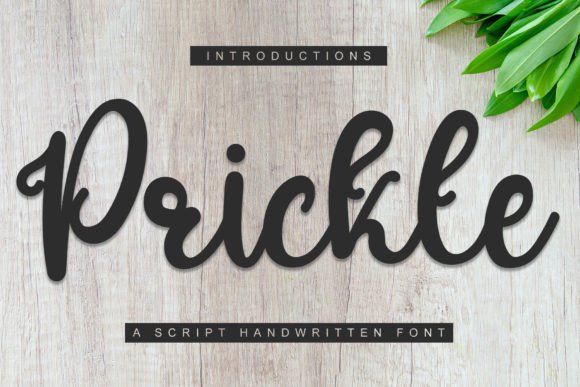
Presenting Prickle Font, a captivating handwritten typeface, exclusively crafted by the renowned YanStudio. This stunning script font boasts an enticing blend of boldness and finesse, making it the ideal choice for businesses seeking to elevate their communication. Each letter, meticulously shaped, exudes a touch of elegance and sophistication.
Prickle's graceful strokes and flowing form create a natural and ethereal look that seamlessly complements any design. Its unique character adds a touch of warmth and individuality to your creations, ensuring they stand out from the crowd. Whether you're crafting captivating emails, designing alluring marketing materials, or creating breathtaking social media posts, Prickle Font is the secret to captivating your audience and leaving an unforgettable impression.
With its versatility and charm, Prickle Font is the perfect ally for any business looking to forge strong connections with its customers. It's a font that speaks volumes, conveying professionalism, creativity, and a genuine desire to connect. Imagine your emails, the lifeblood of your business, adorned with this captivating font. Prickle transforms your messages into compelling narratives that resonate with your audience, inviting them to engage and discover your offerings. Every email becomes an opportunity to make a lasting connection, building a loyal customer base that fuels your business' growth.
Beyond emails, Prickle Font empowers you to craft marketing materials that truly shine. Brochures, flyers, and posters infused with Prickle's elegance will captivate your audience, drawing their attention to your message. Its ability to effortlessly blend with images and design elements ensures that your brand's personality shines through, fostering a strong emotional connection with your customers.
And when it comes to social media, Prickle Font becomes your secret weapon. Your posts, adorned with this enchanting typeface, will dance across screens, captivating your followers and igniting their curiosity. Engage with your audience, share your story, and showcase your products or services with Prickle's captivating style. It's the font that turns followers into brand advocates, spreading the word about your business with passion and enthusiasm.
With Prickle Font as your ally, your business communication will undergo a metamorphosis, transforming into a symphony of elegance and effectiveness. Experience the power of a font that connects, captivates, and inspires. Embrace Prickle Font today and unleash your creativity, leaving an unforgettable mark on your audience.